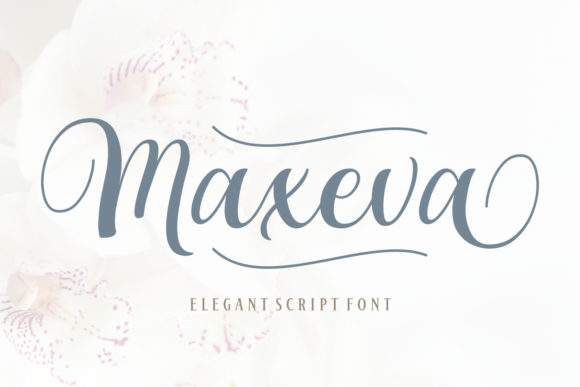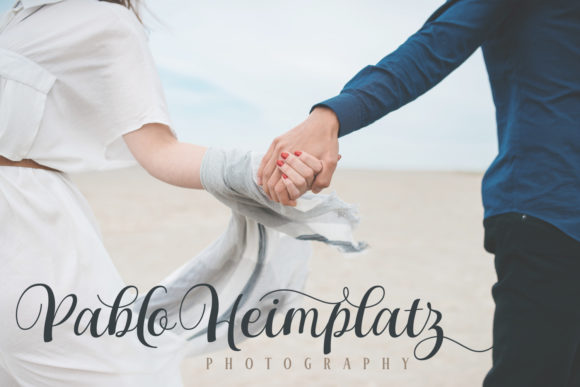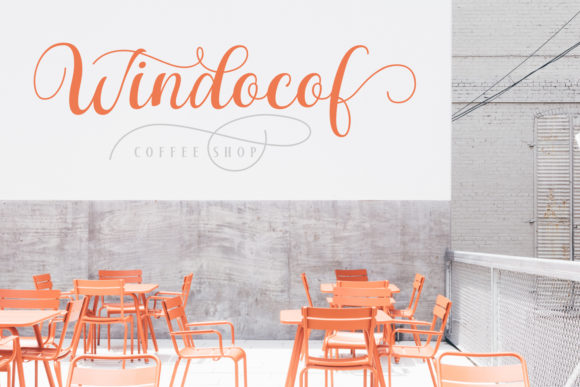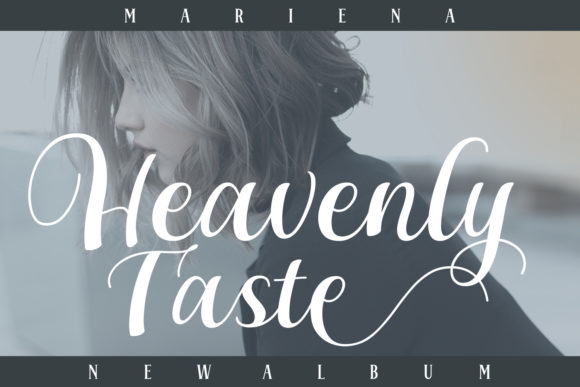
Maxeva Font
About Maxeva Font
The Maxeva is a beautiful handwritten font. It includes amazing glyph’s which will add an elegant and luxurious touch to your designs.